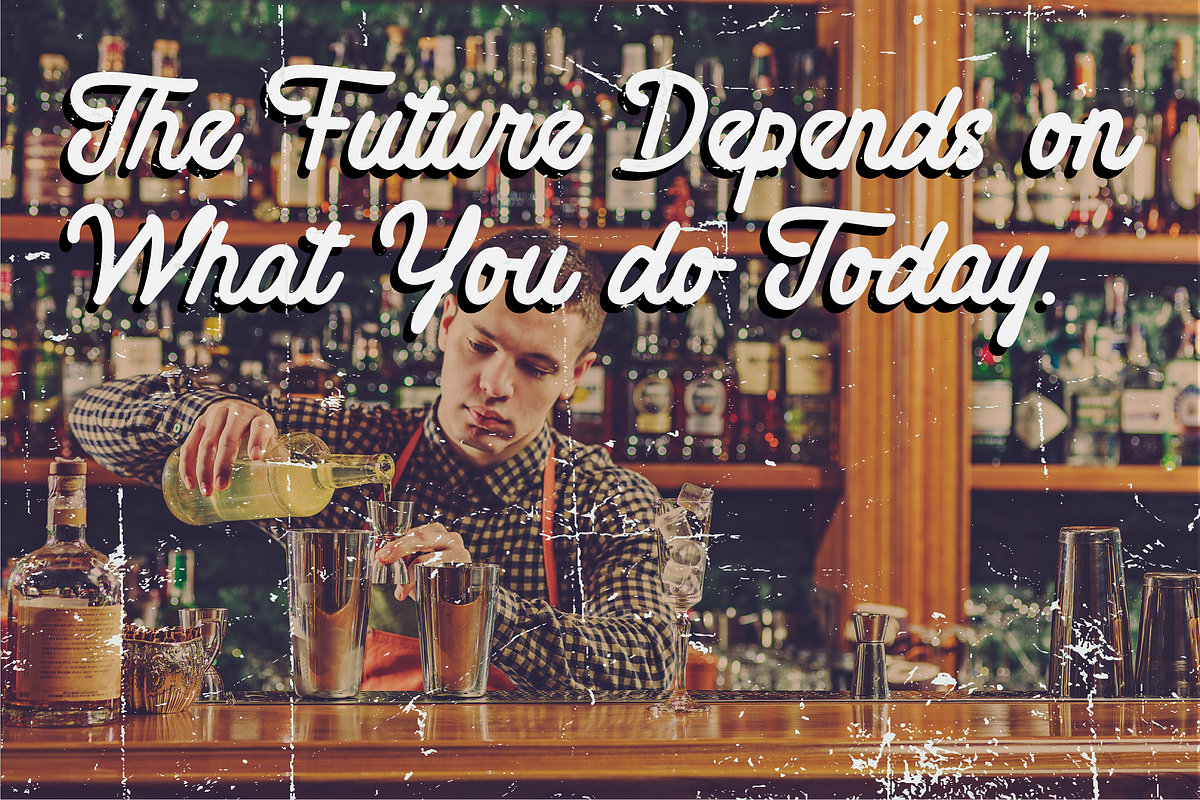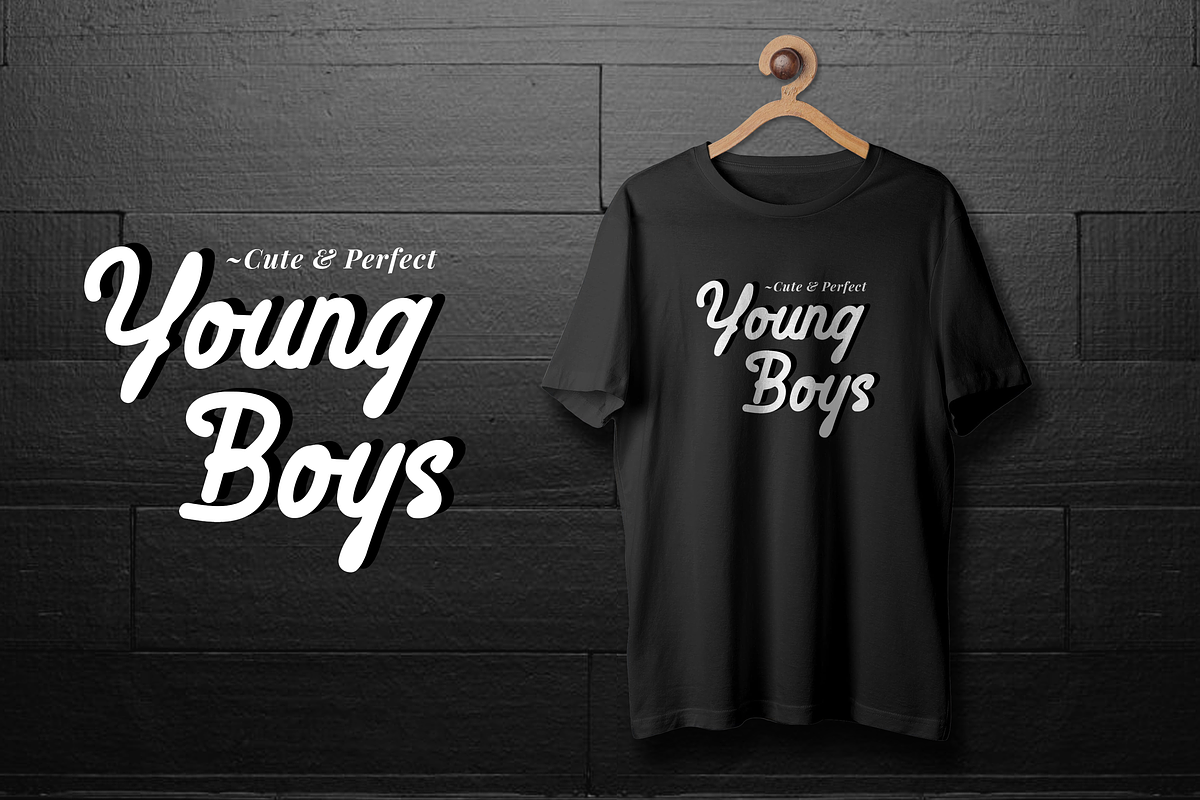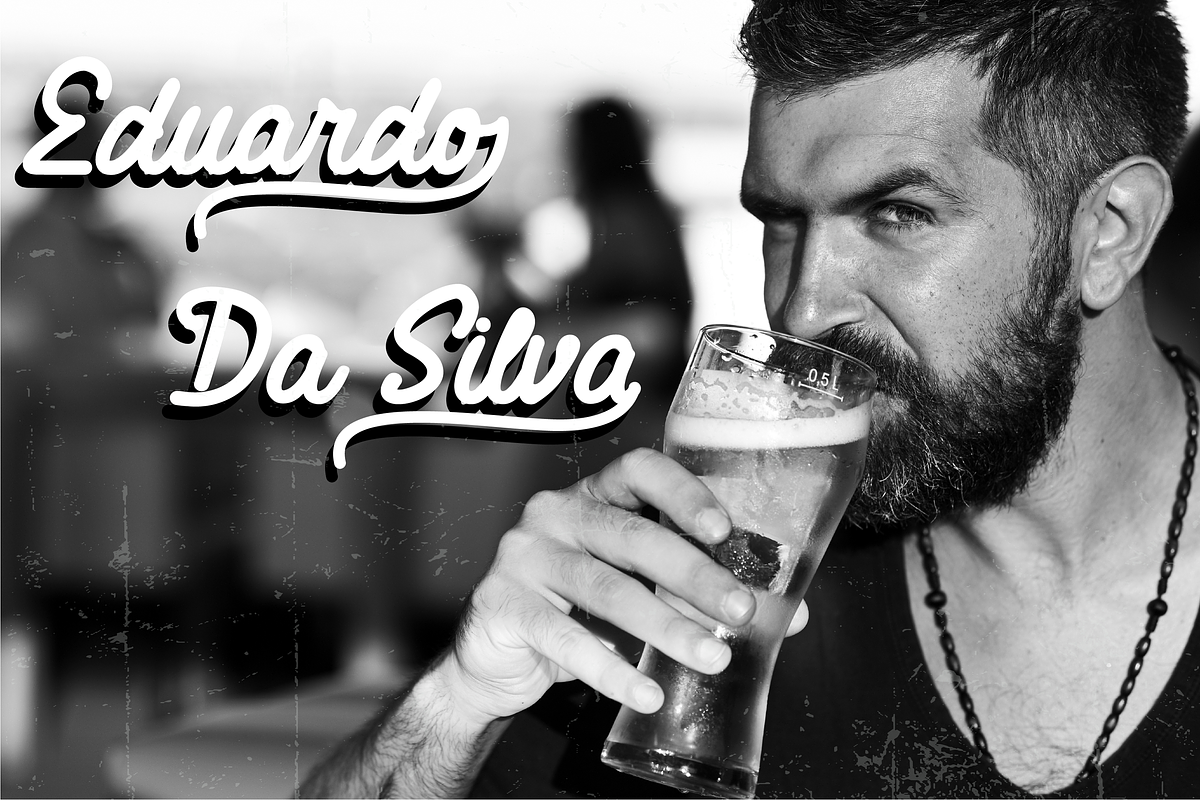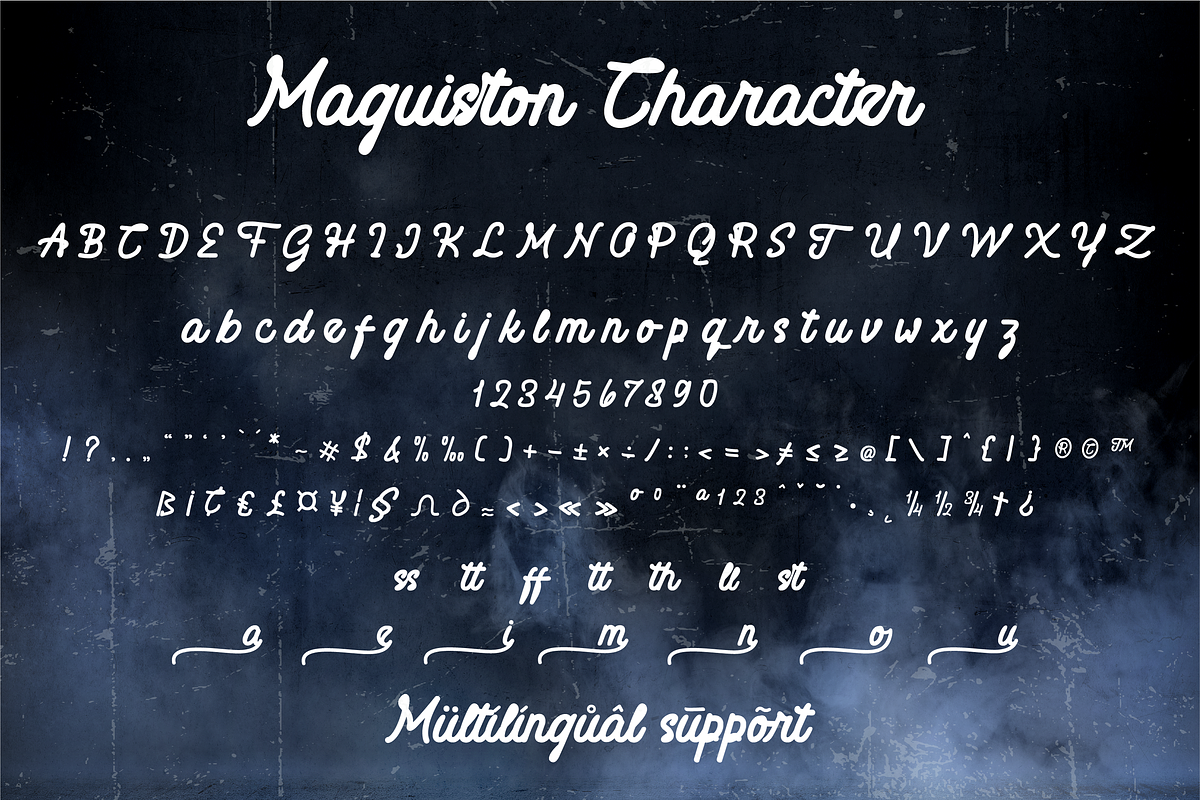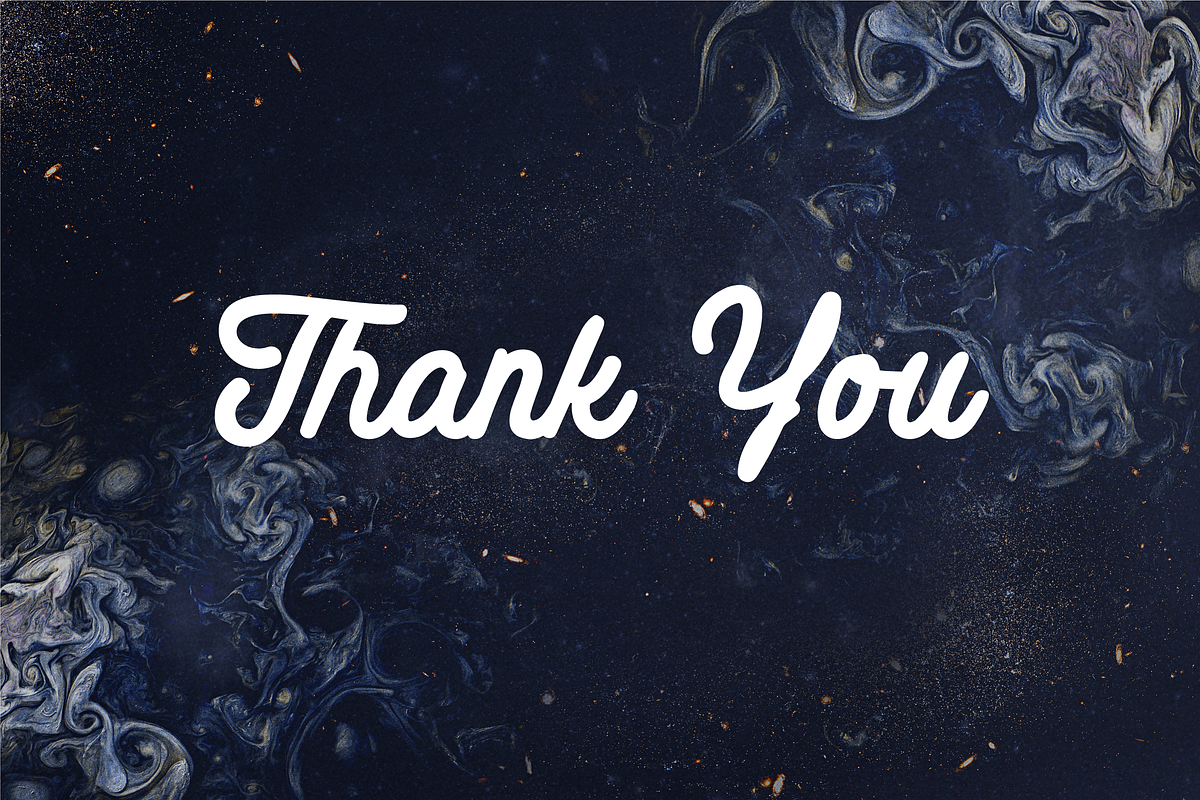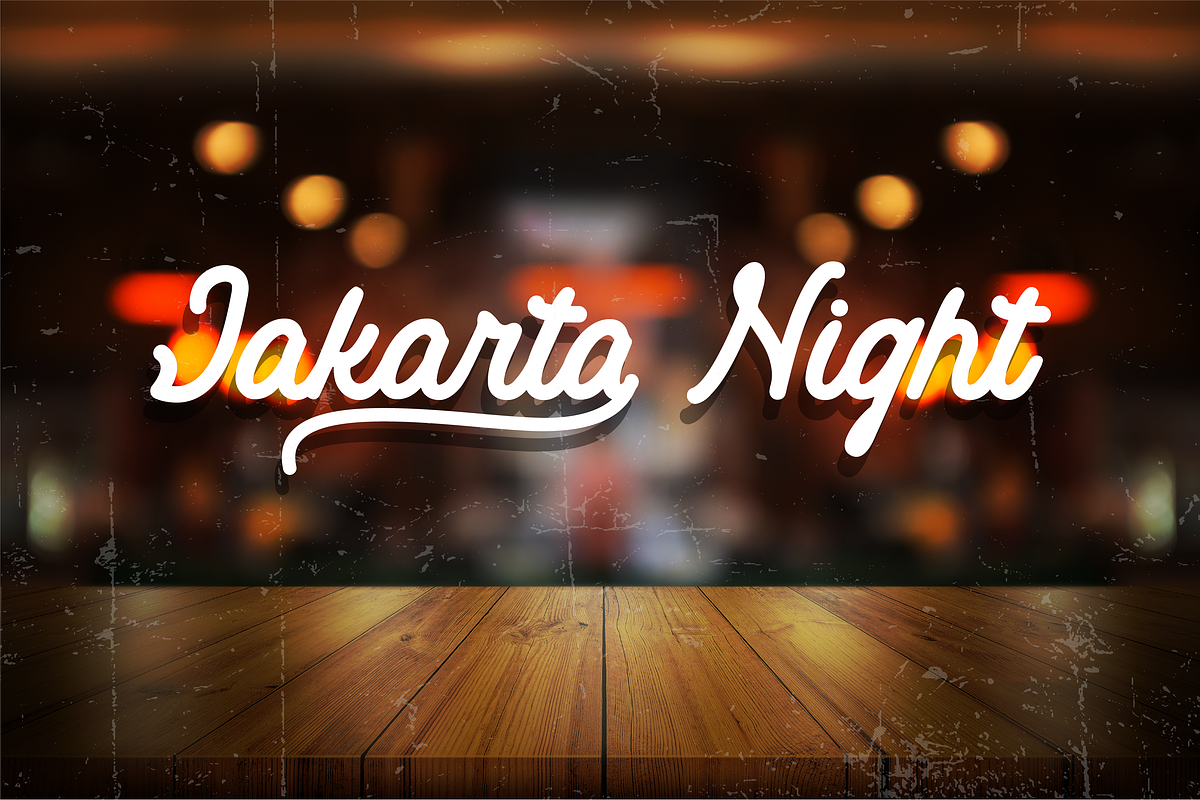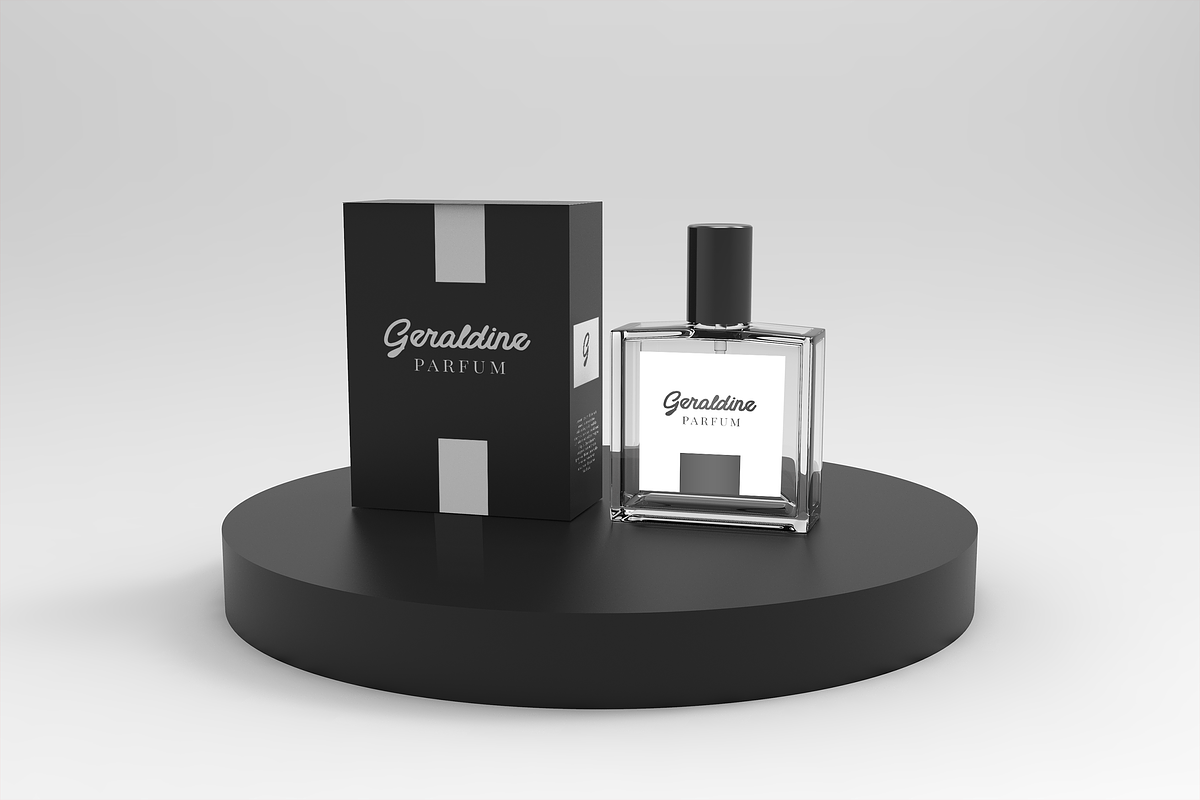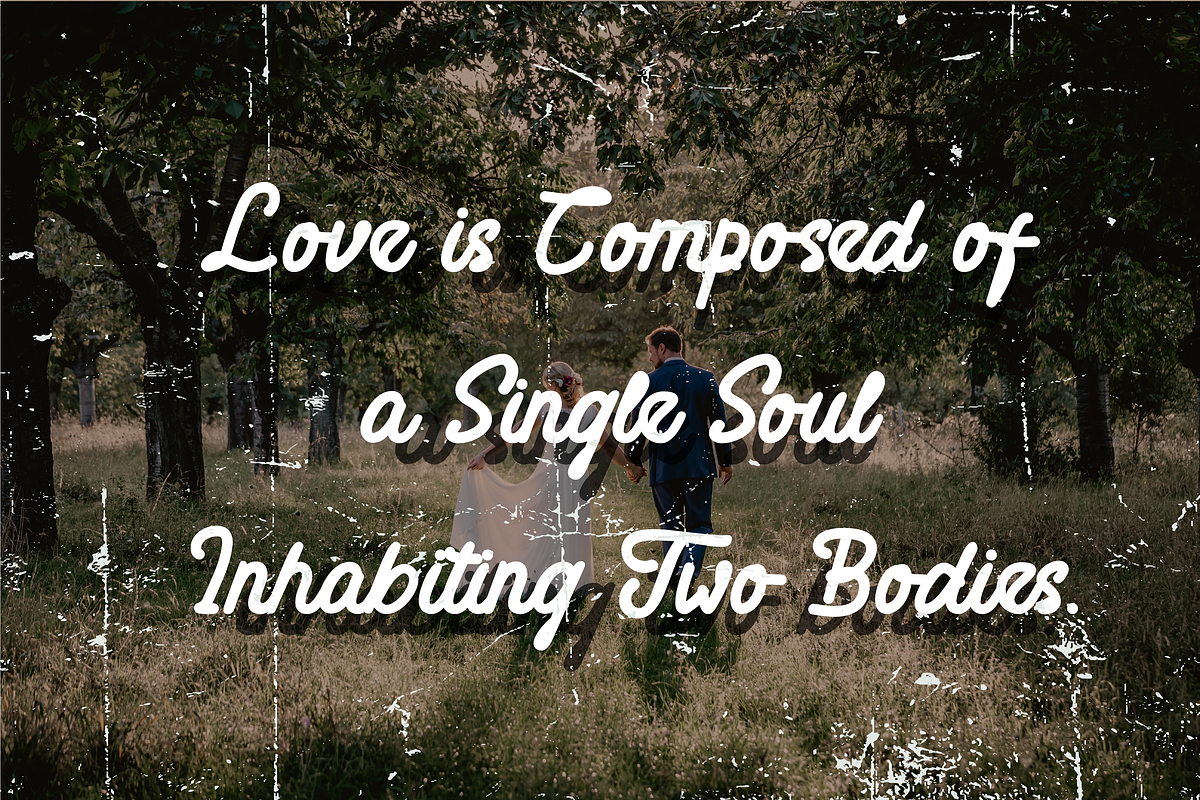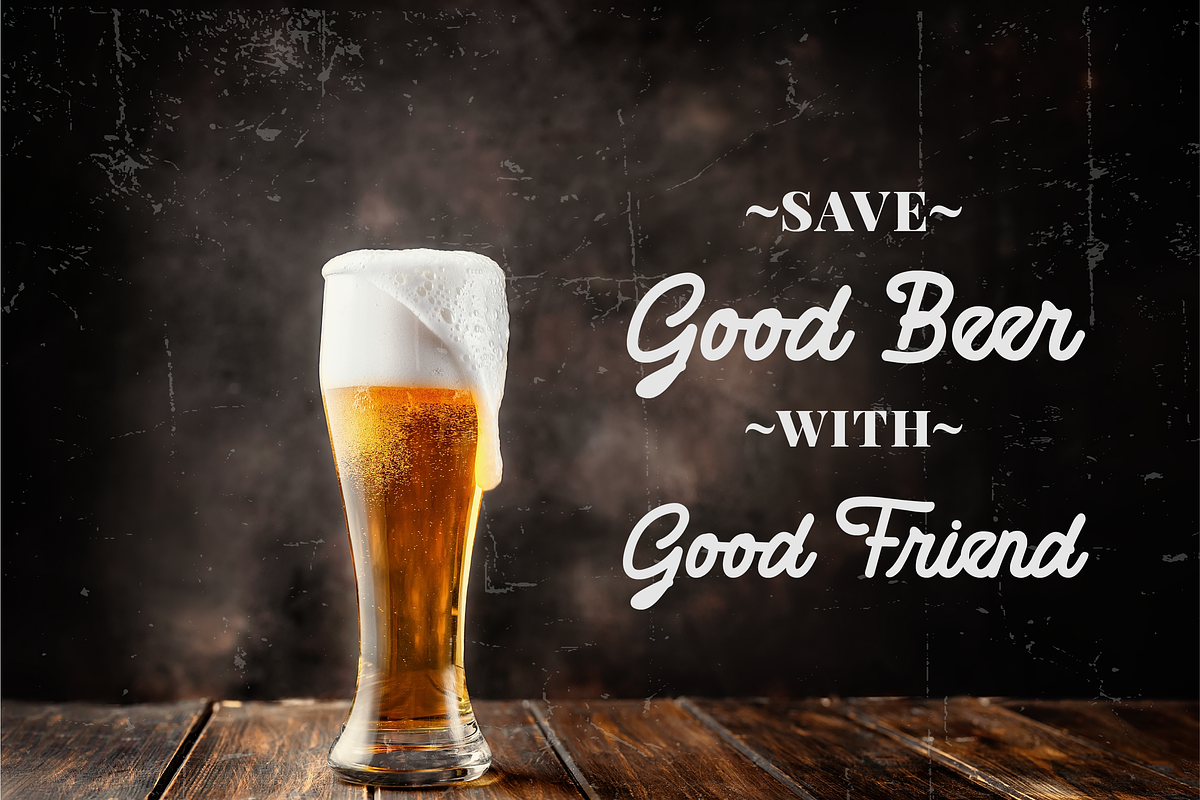
Maguiston a Monoline Script Font
Introducing Maguiston is a Monoline Script Font. This font is created with a new monoline style that always follows the growing trends. This Monoline-type font has a strong character for each letter, so it is suitable for the needs of any type of work. so immediately have this font so that your product looks more elegant and cool.
Maguiston best uses for Logotype, heading, cover, poster, logos, quotes, product packaging, wedding invitation, header, social media & greeting cards, fashion, apparel, Marchandise, branding, packaging, advertising, and many more. This font is also supports multi-language.
- Ligature and Stylish Set
- Fonts include multilingual support